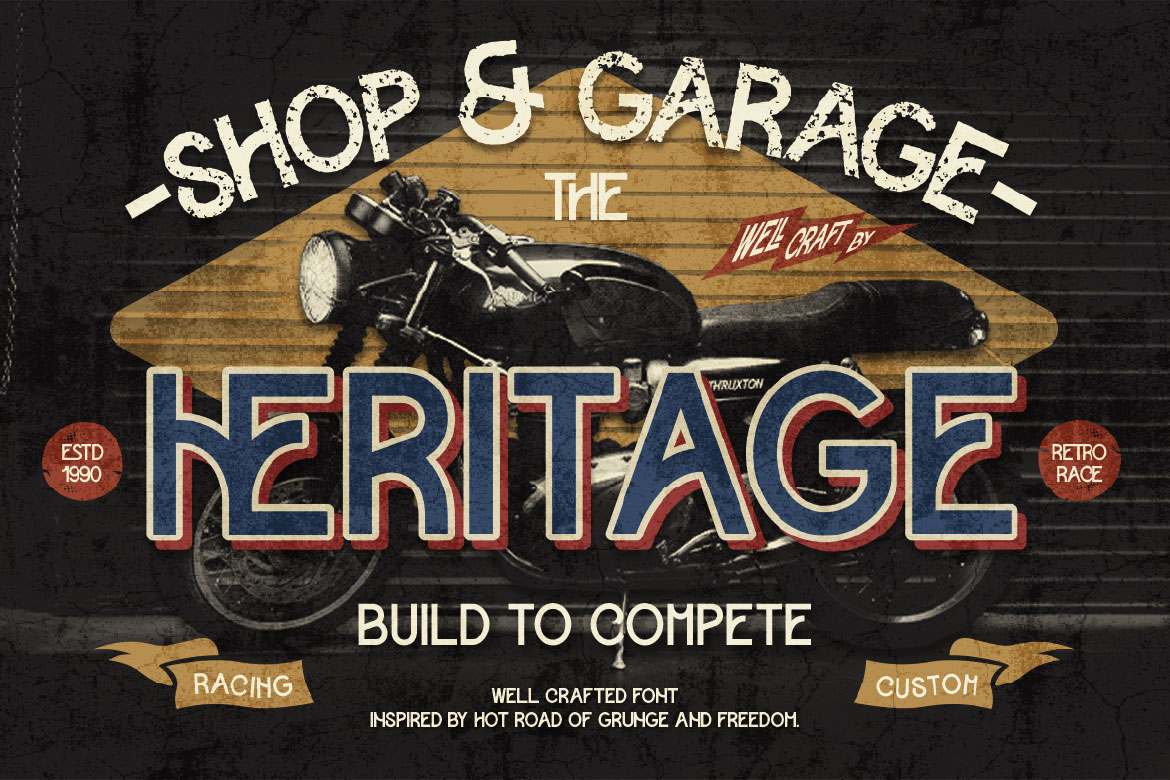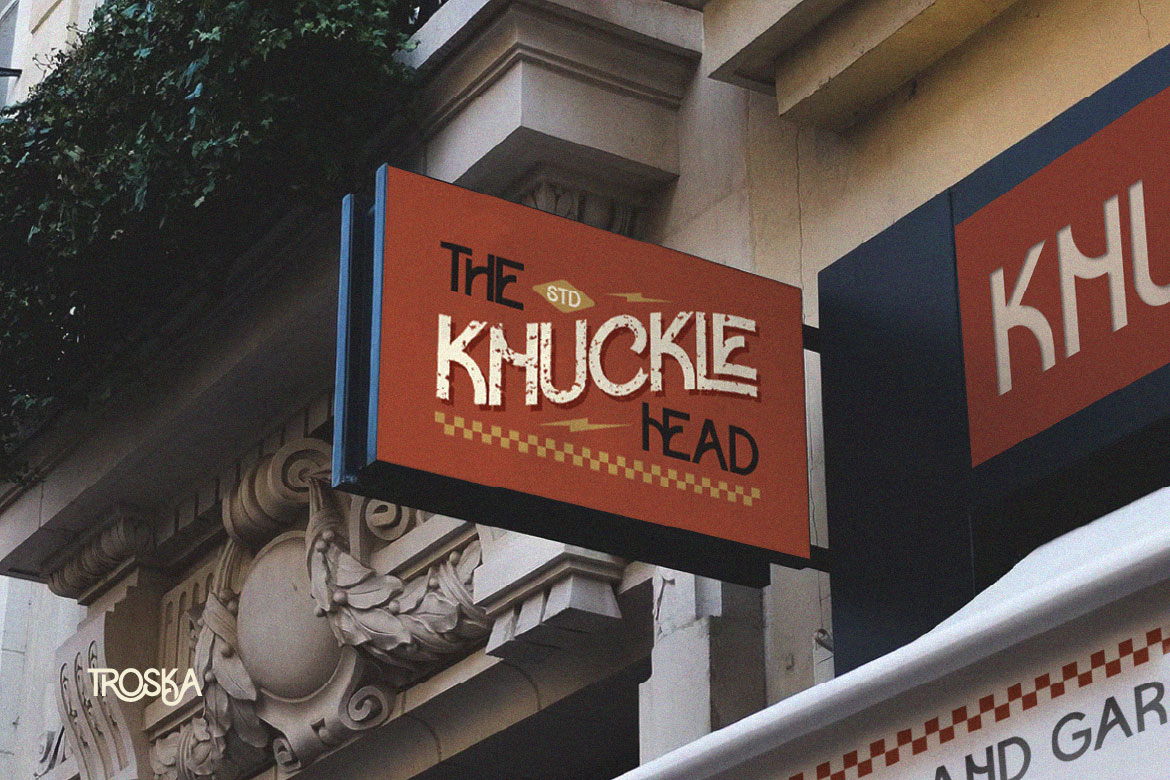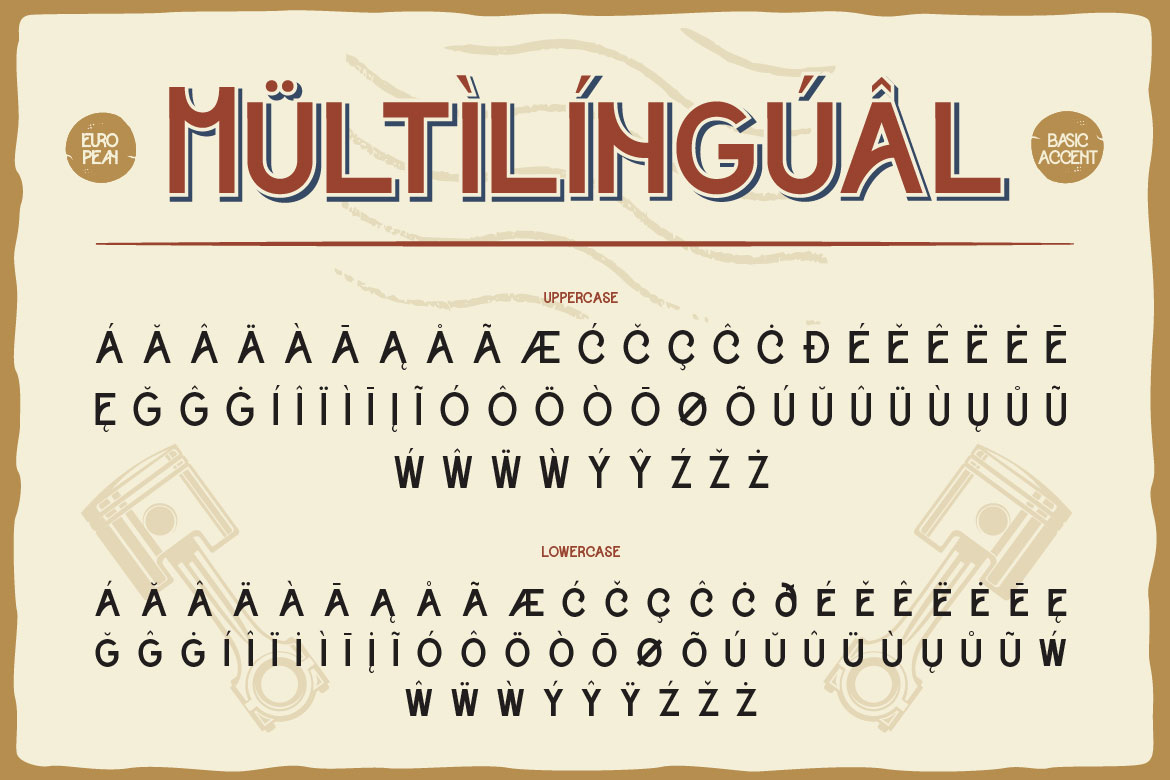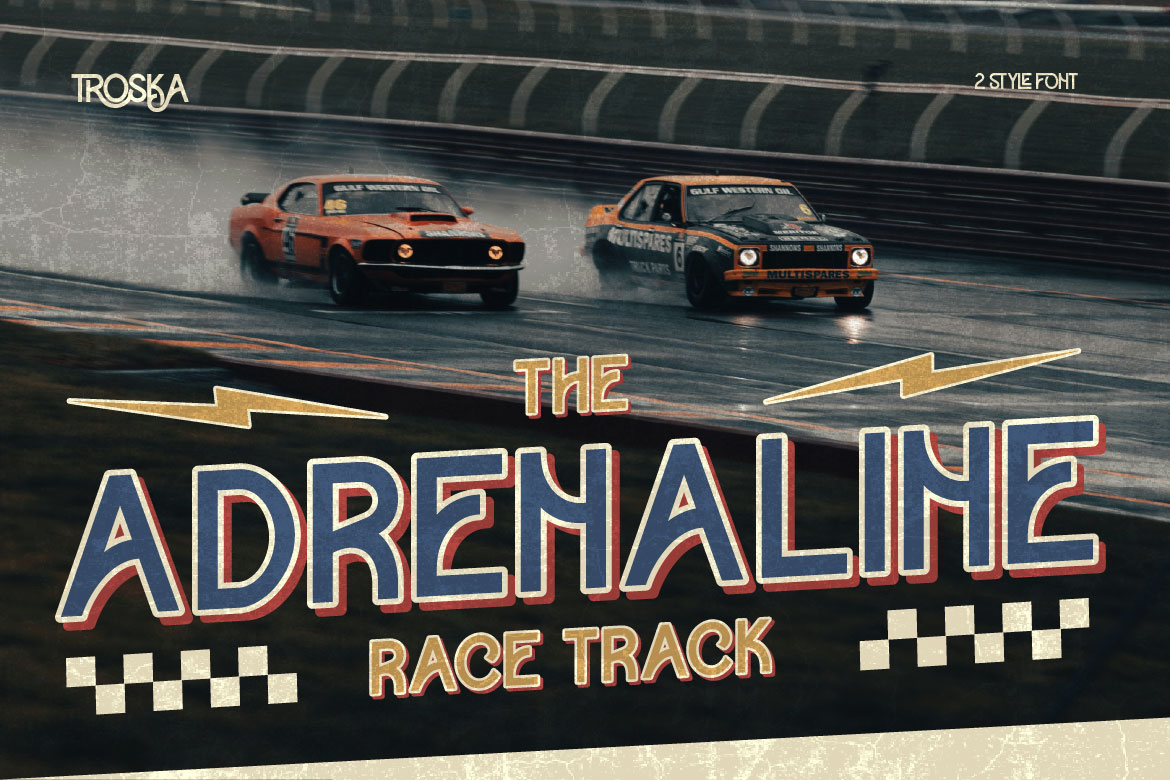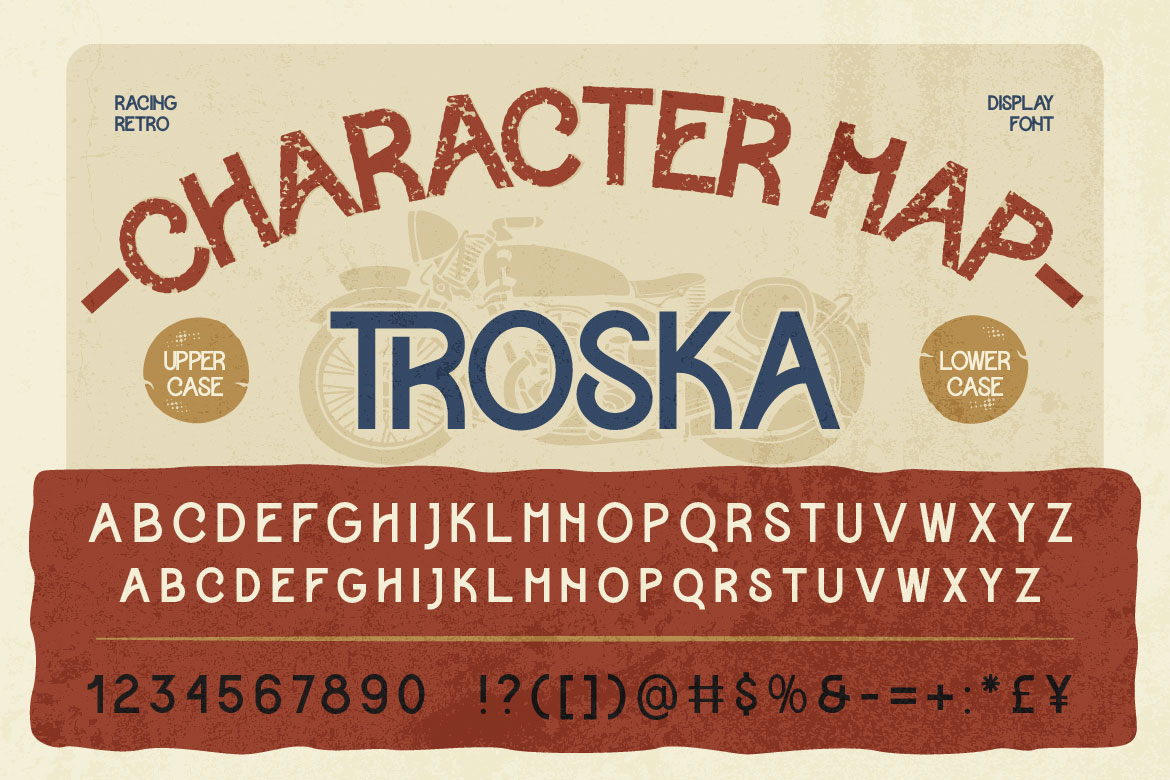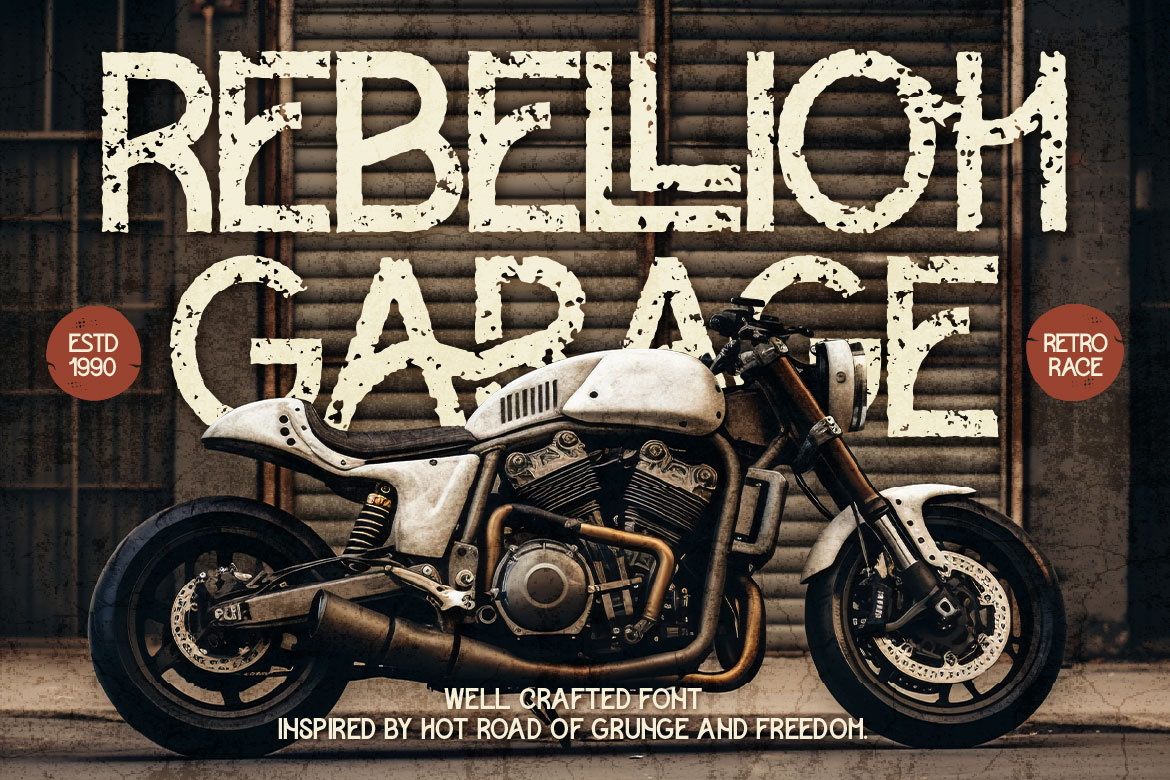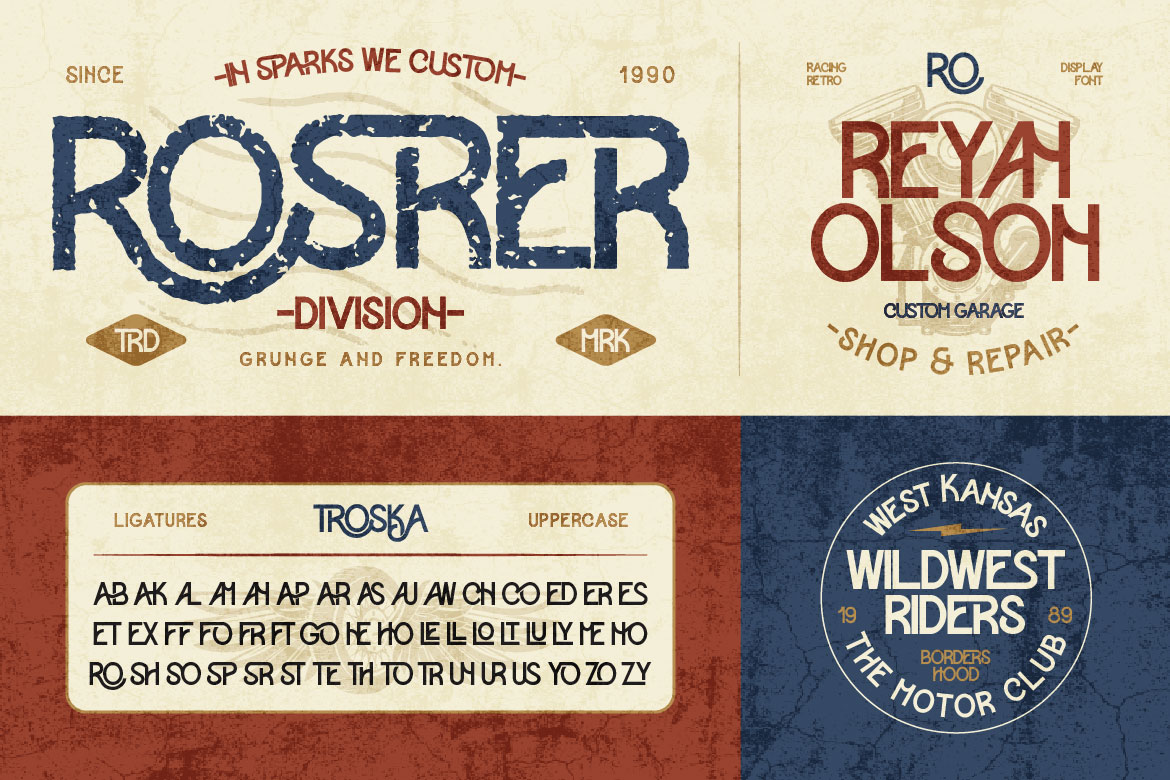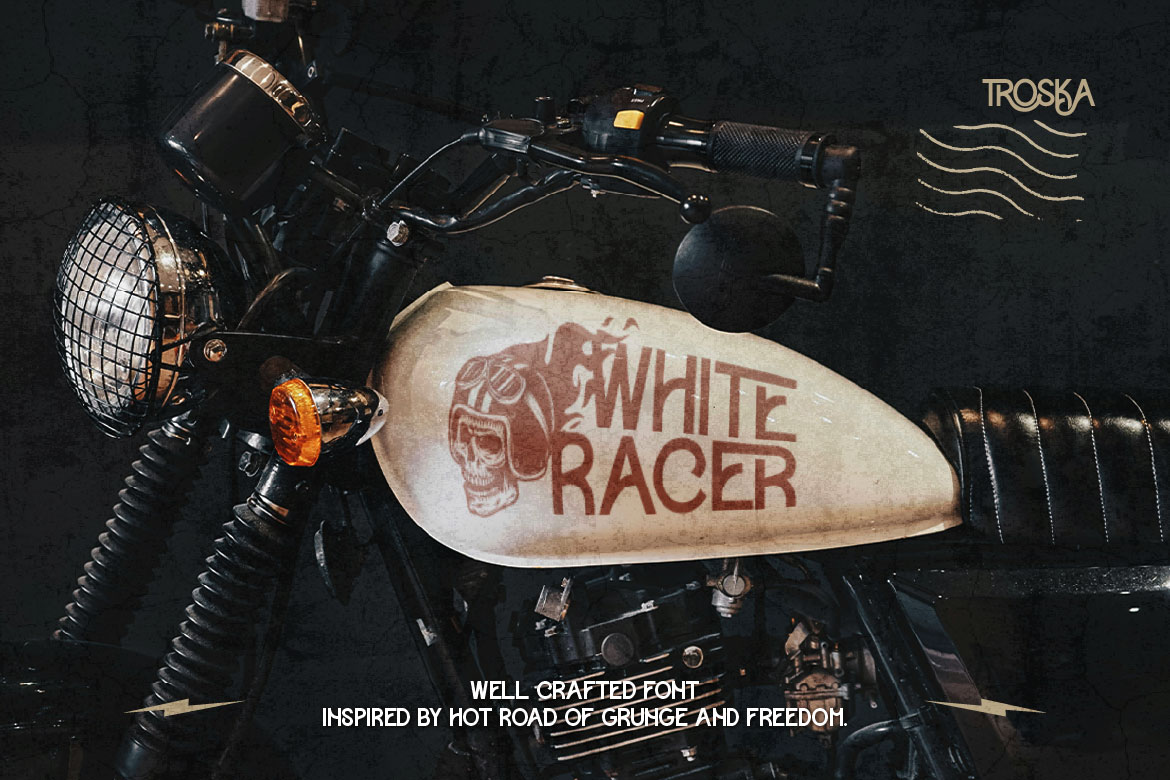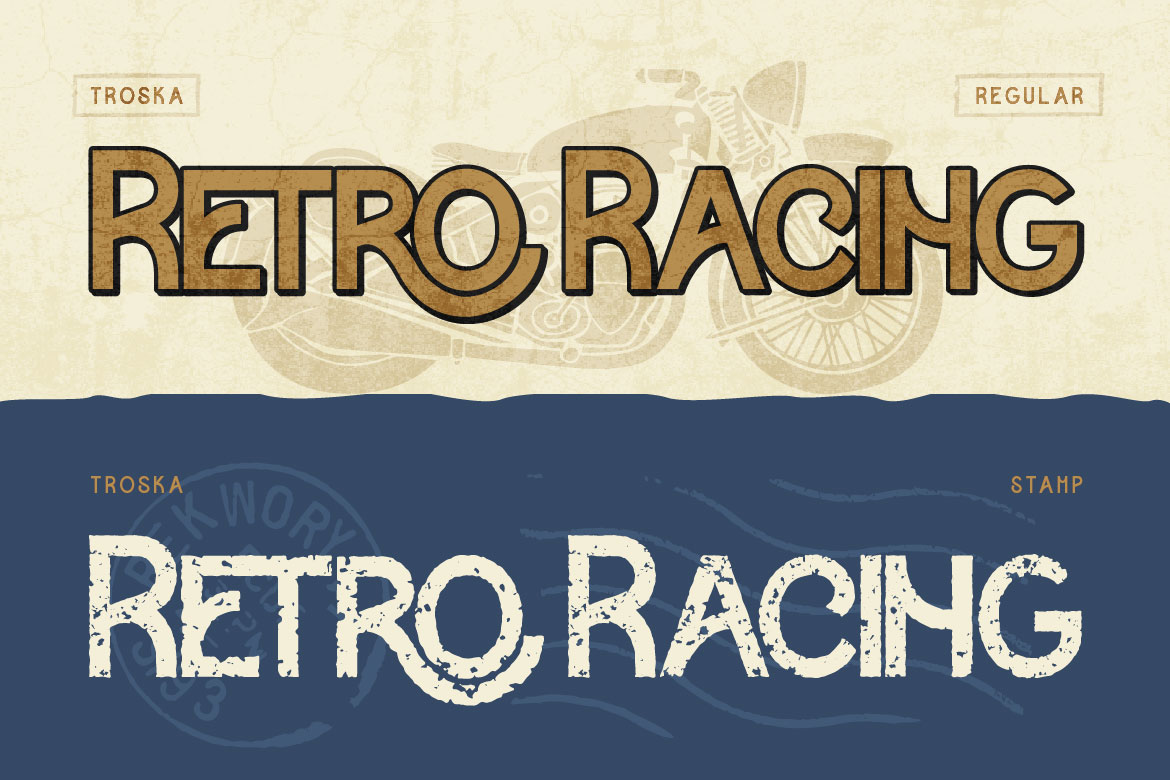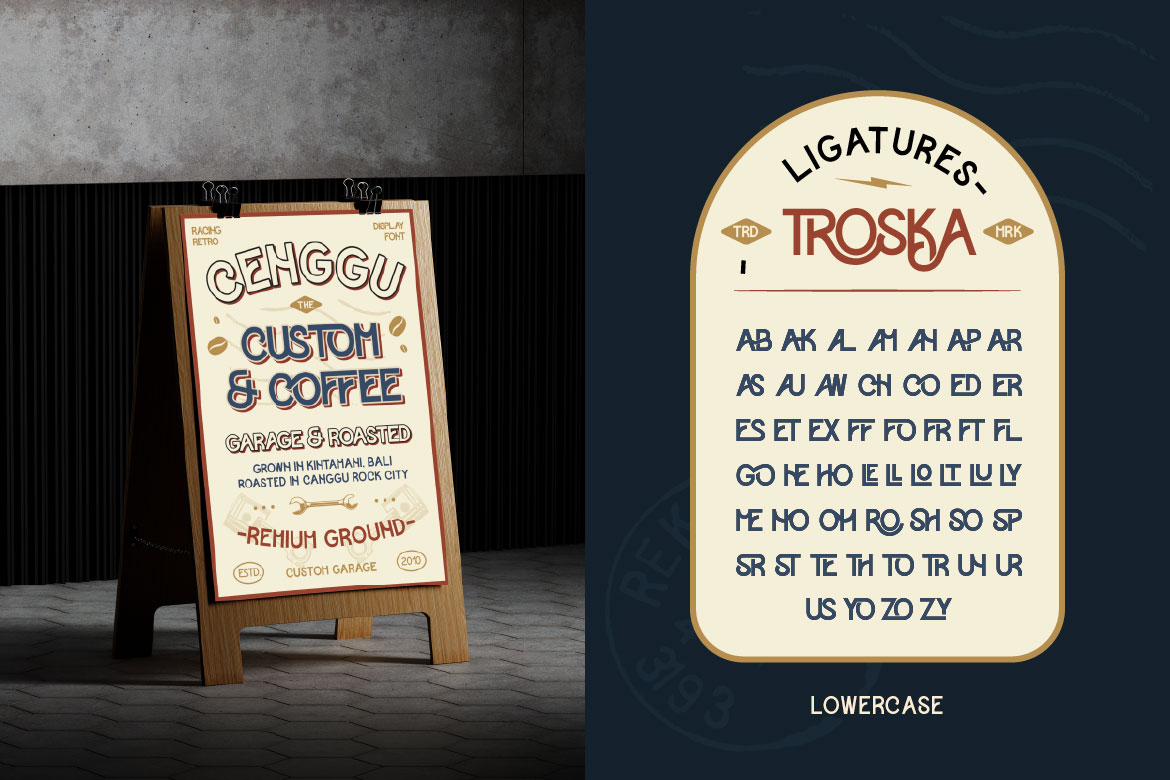
Troska
Regular
Stamp
Proudly present, Troska, a retro racing display font. The retro design give sense of nostalgia and adventures. Troska have 2 styles, regular and stamp. The stamp style make it more looks retro and vintage. The bold letterforms ensure excellent readability. Include with alternates, ligatures and multilingual accent make it suitable for any project. Ideal for racing or sport themes, vintage branding, automotive and motorcycle themes, streetwear and urban fashion.
• A – Z set (Uppercase)
• Number
• Punctuation
• Alternates
• Ligatures
• Multilingual
• Troska Characters Map